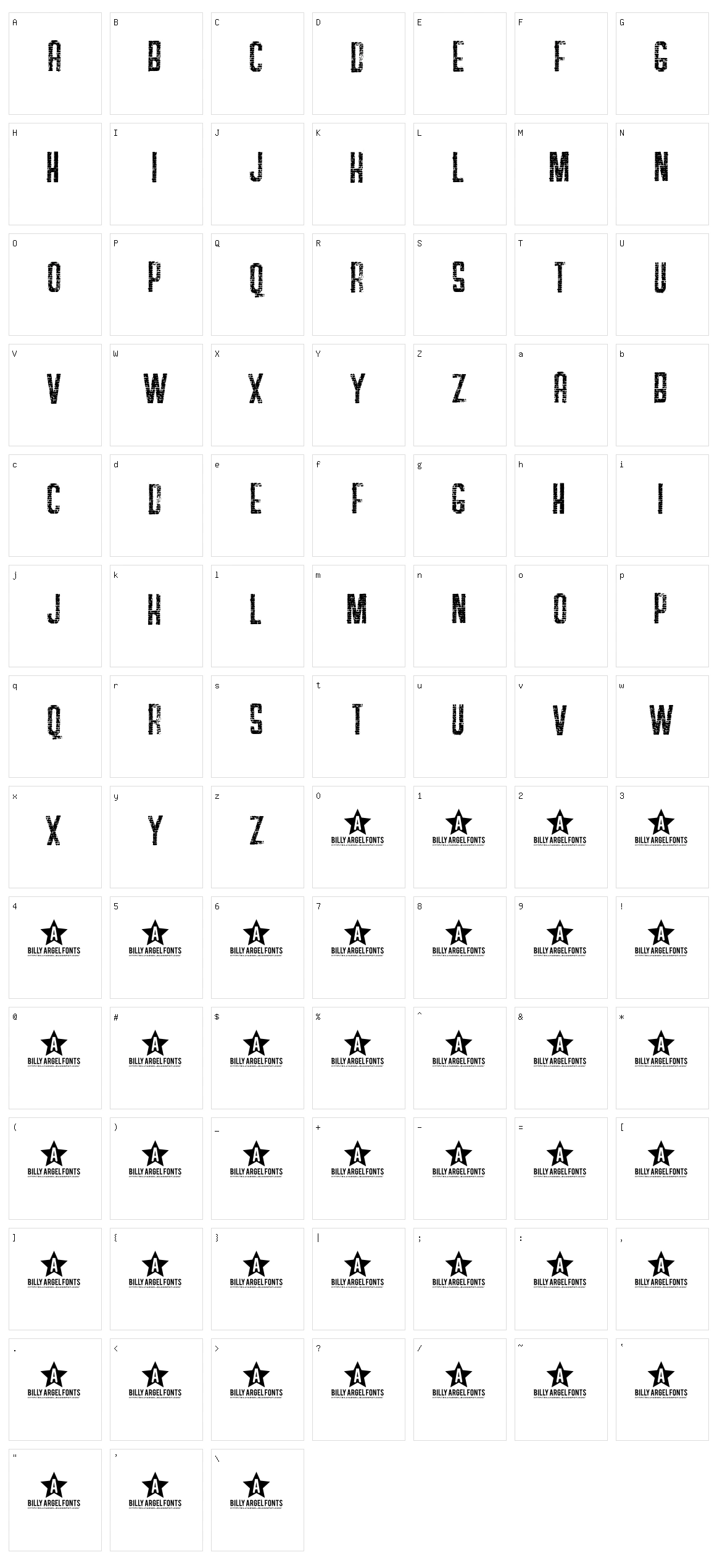
The free font Soap Store is carefully designed by Billy Argel Fonts ®, showcasing a thoughtful balance of creativity and usability and falls under the Eroded font style. When you download the ZIP file, it contains only 410.91 KB of font files, making it lightweight and quick to download. Please review the license details below to understand permitted usage and distribution rights. If license information is not available, we recommend using this font for personal projects only or contacting the author directly for commercial usage permissions.